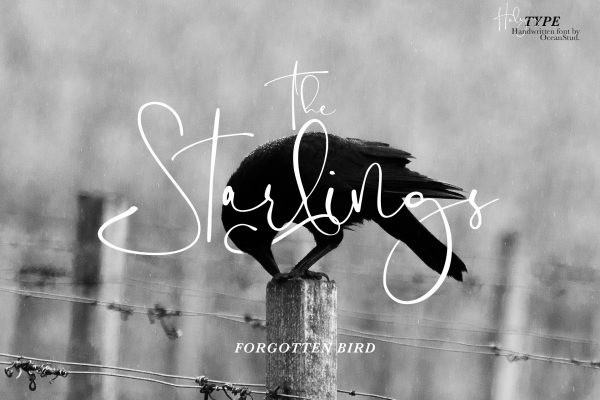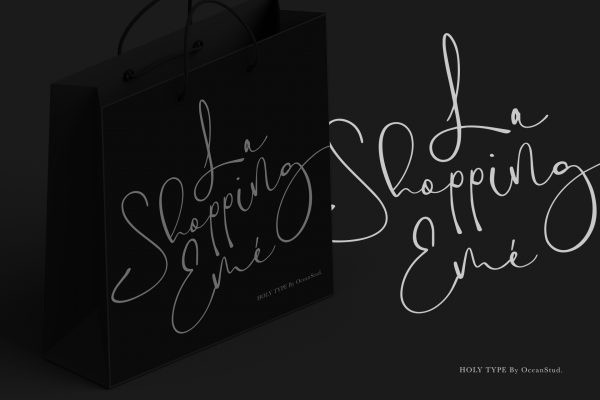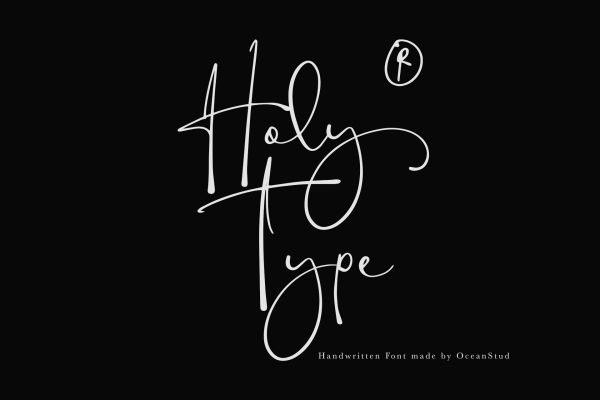
Holy Type Handwritten Font
Introducing this is HOLY TYPE FONT a handwritten font inspired and dedicated or consecrated to God or a religious typeface , meaningfull of type.